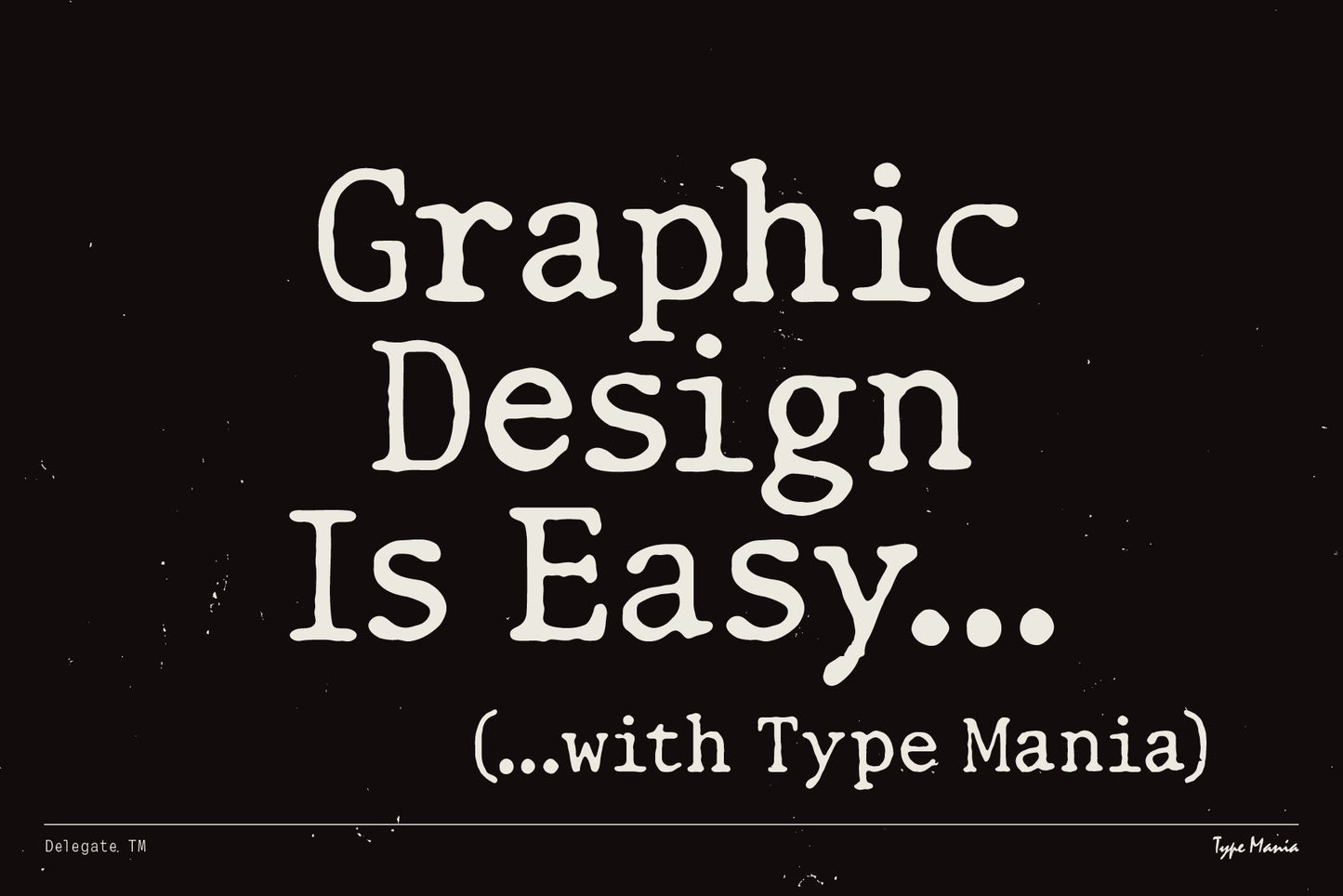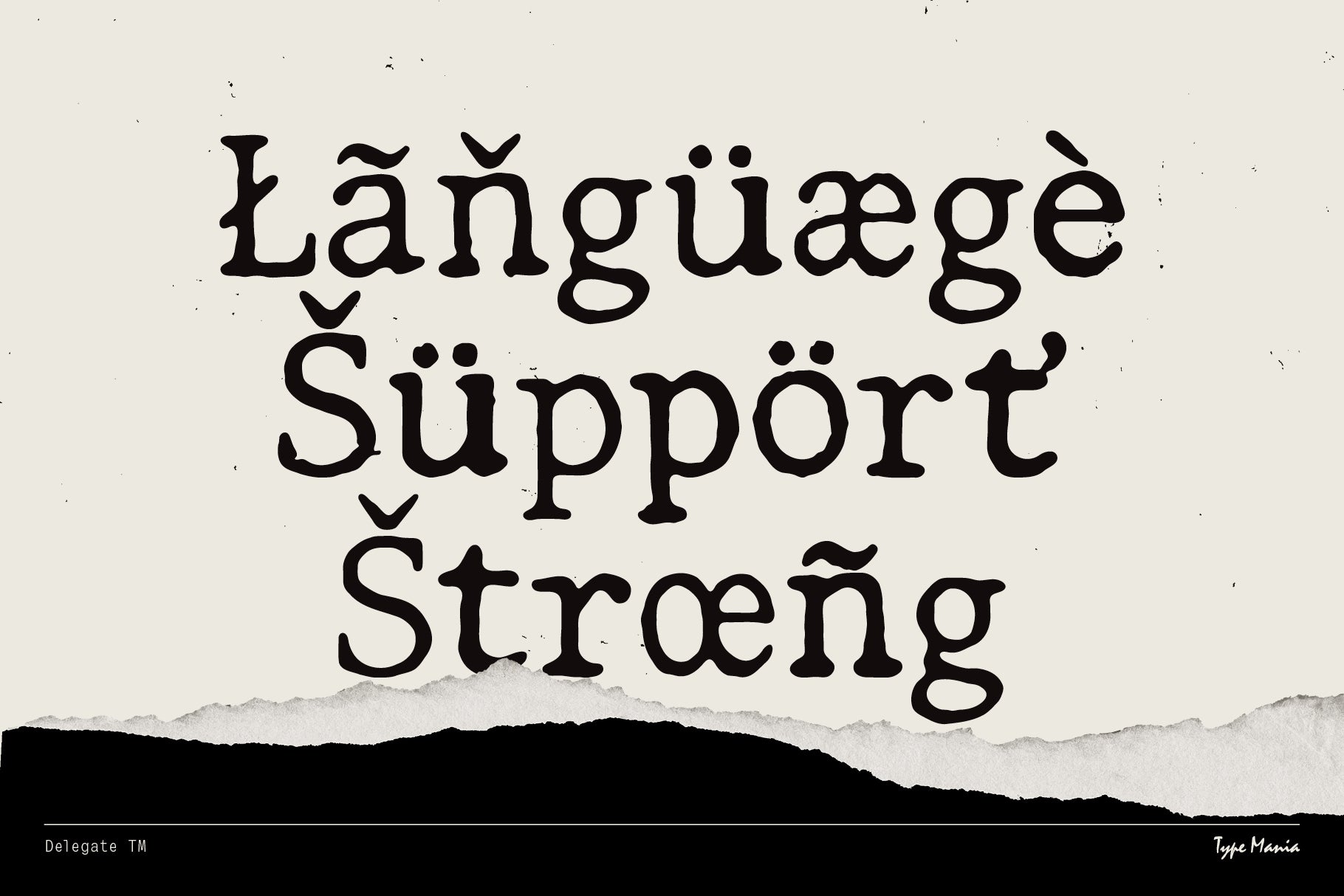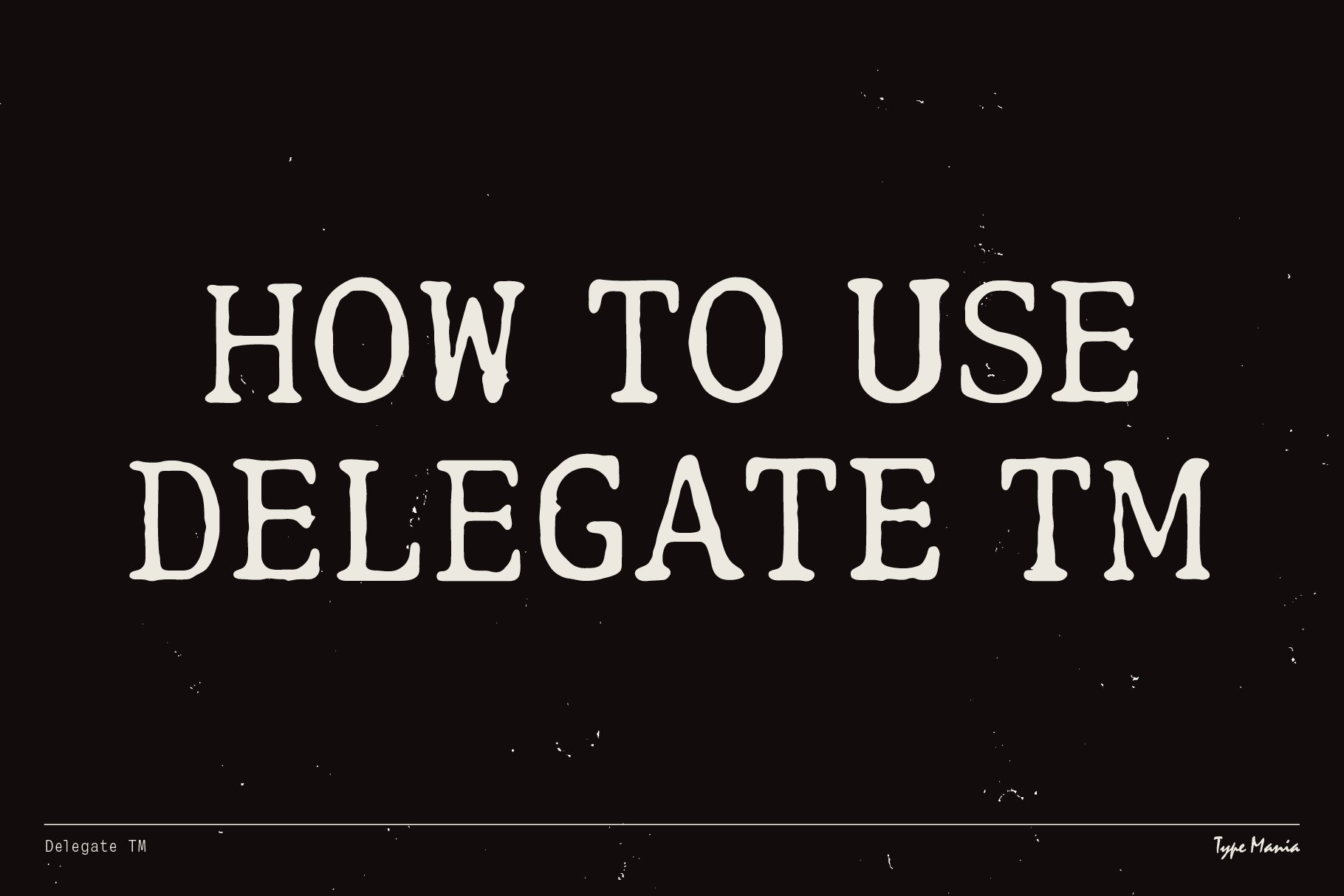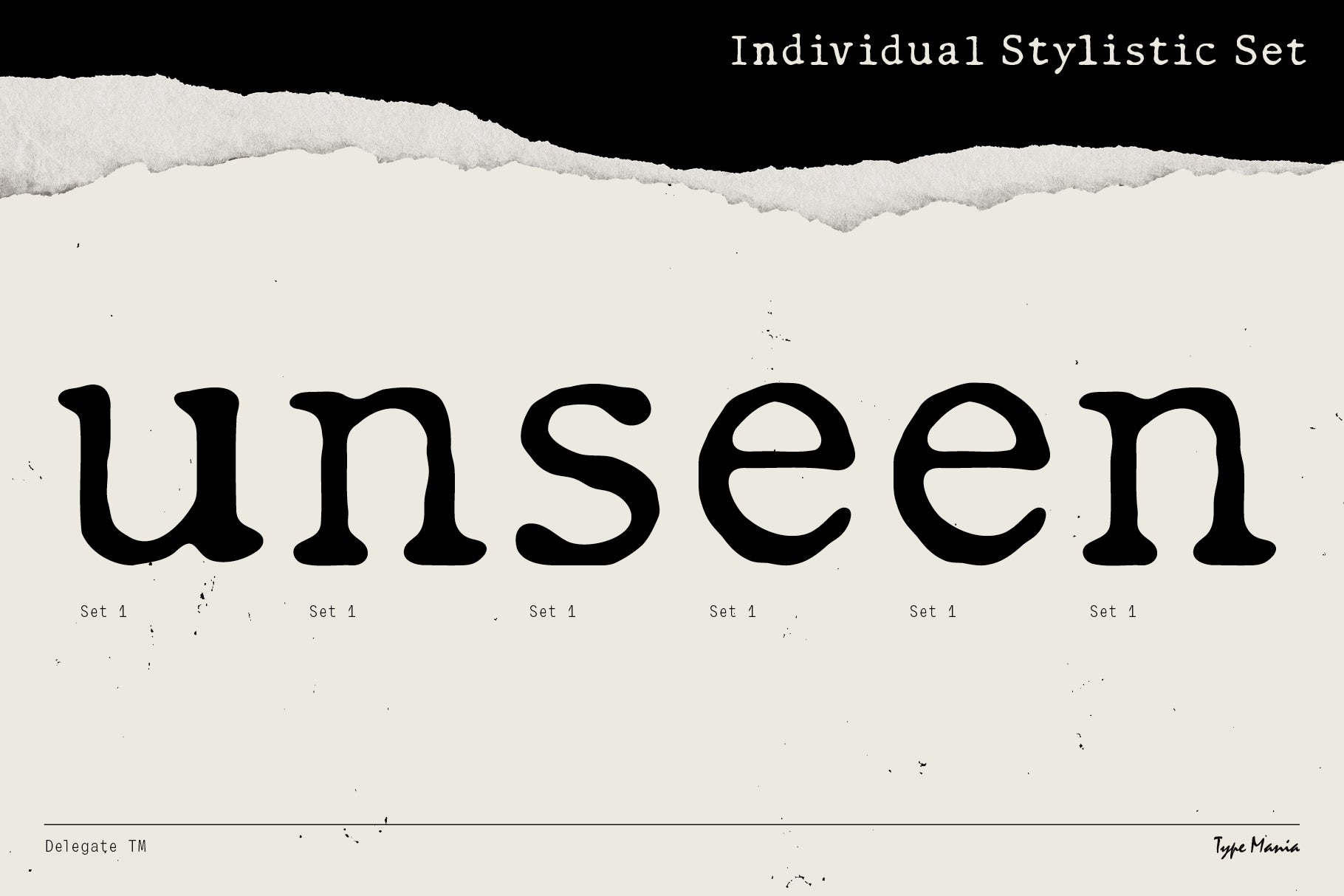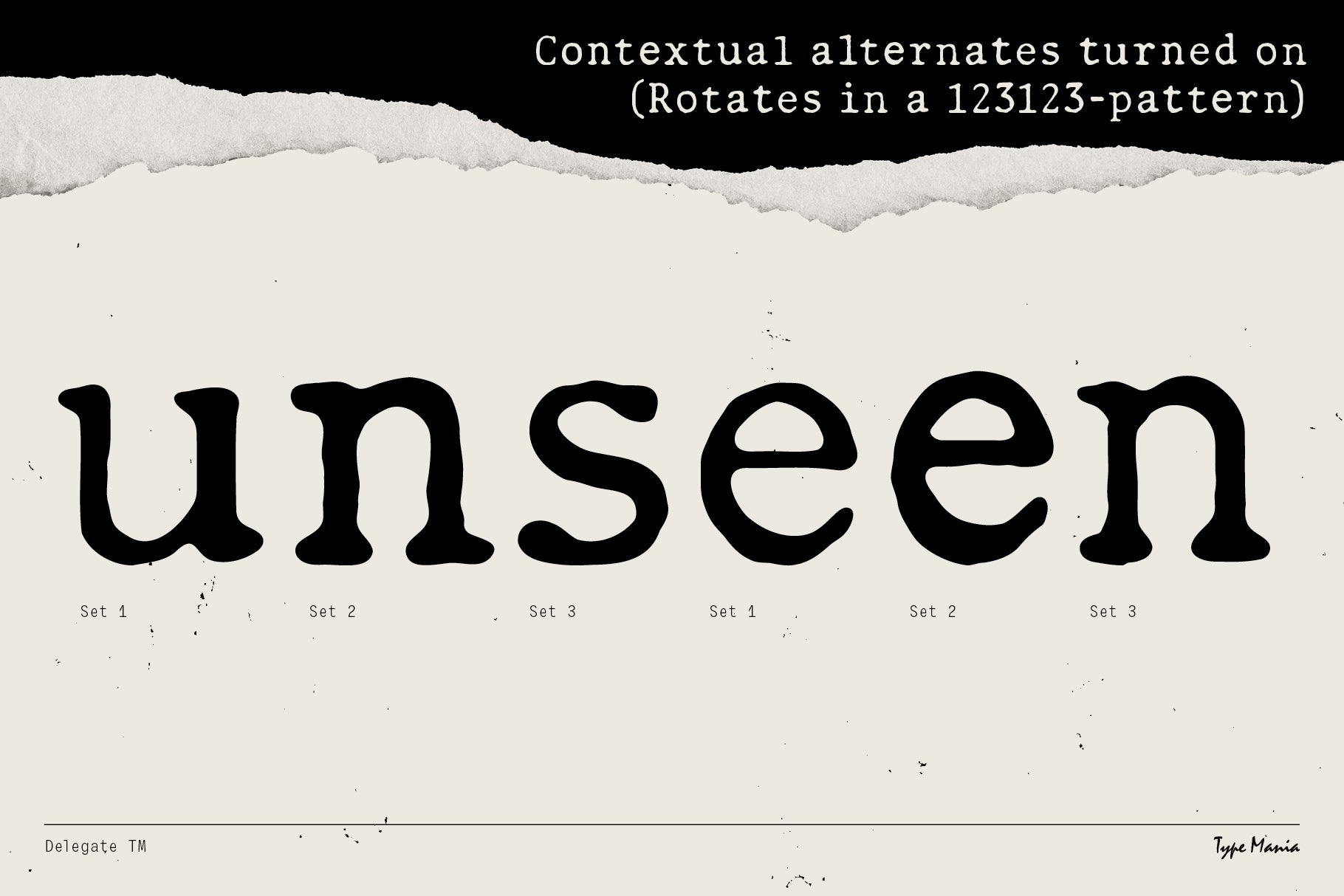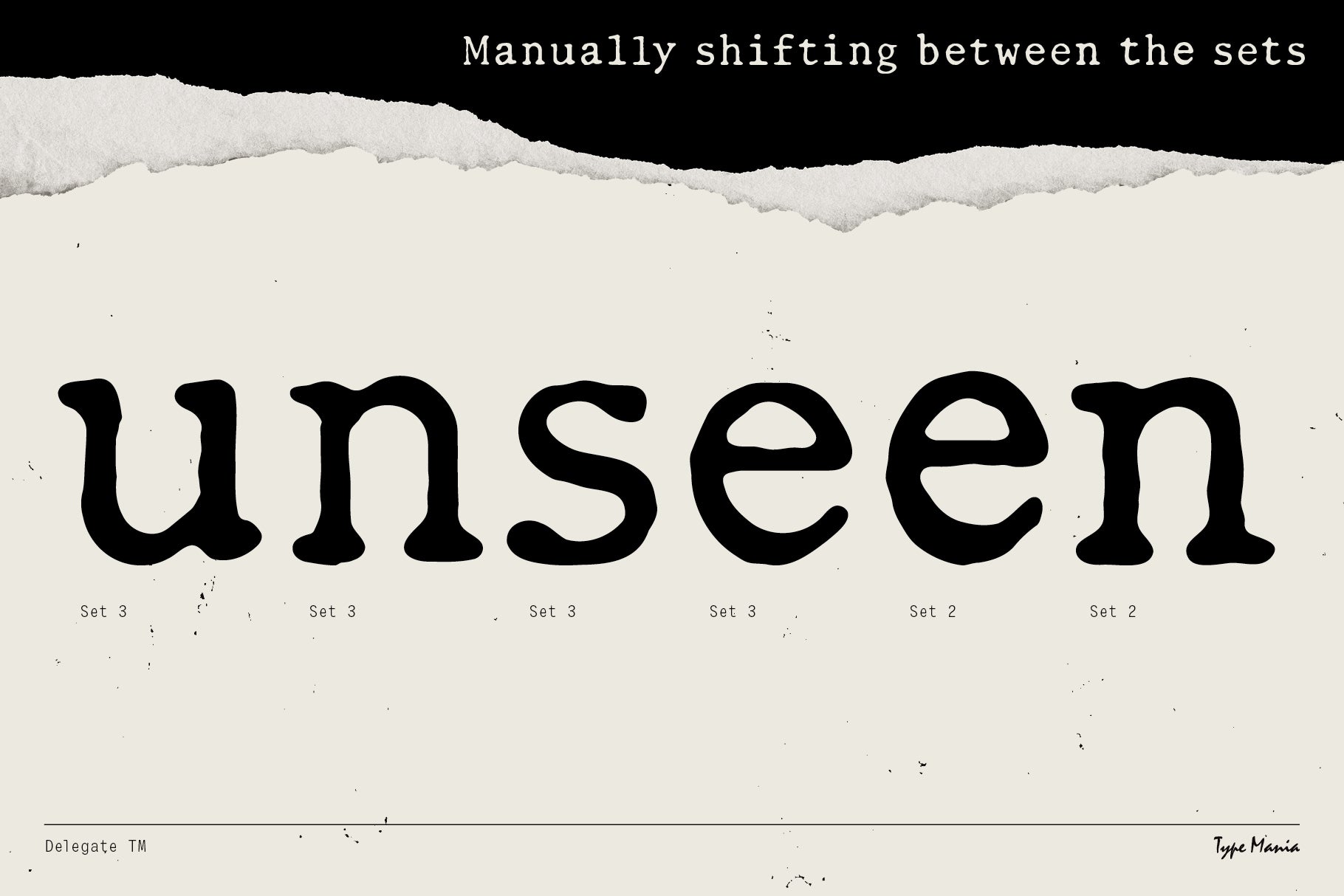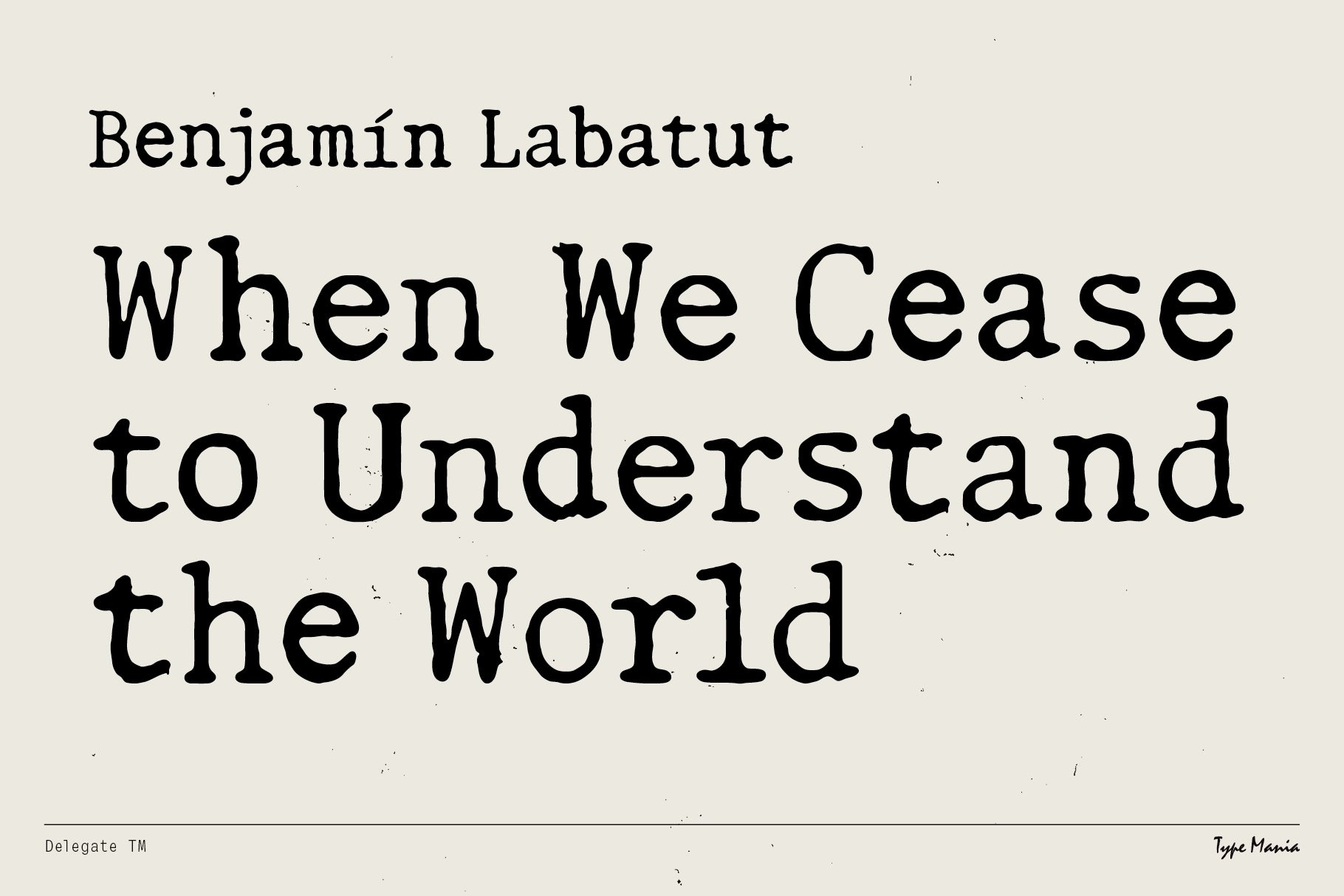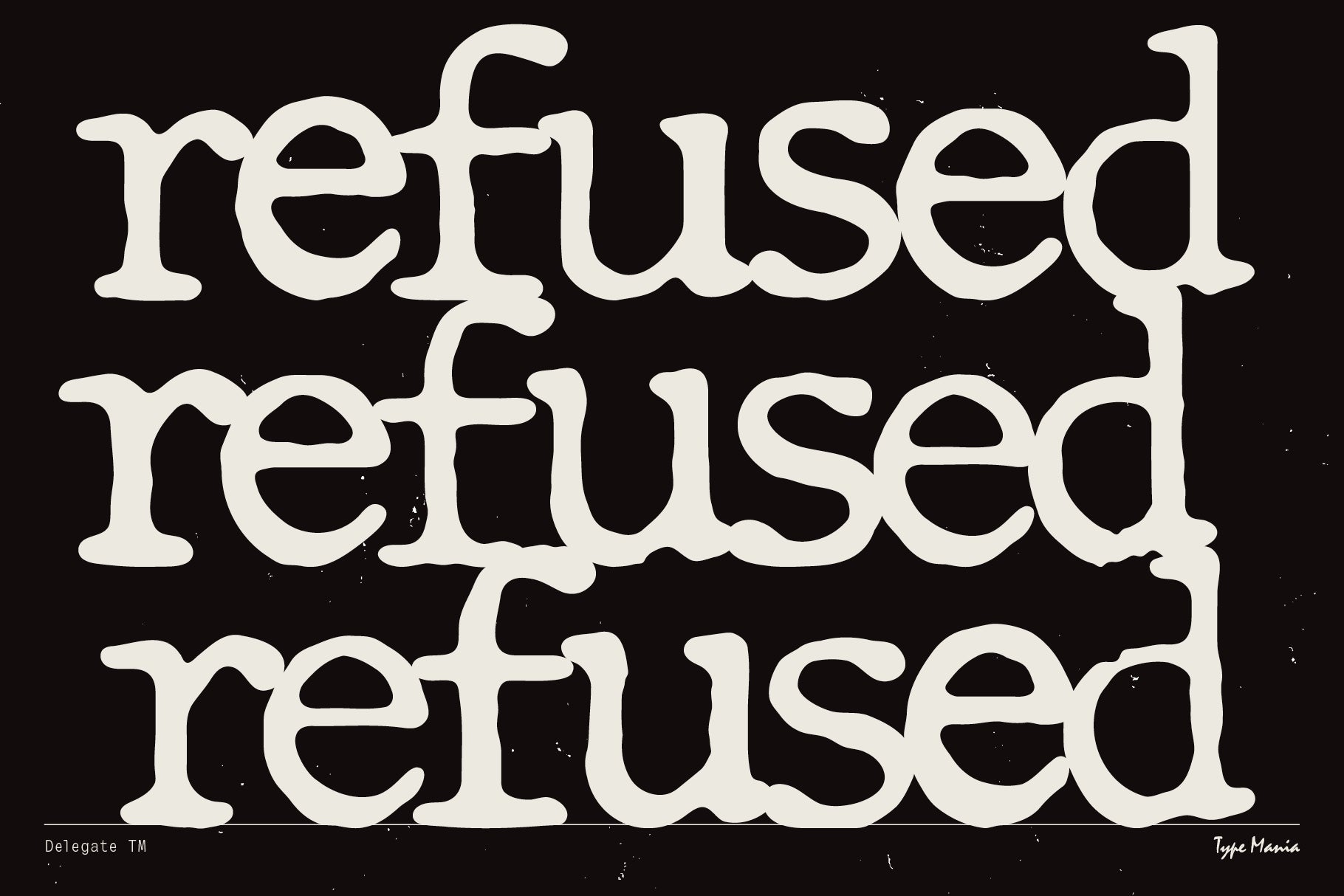
Delegate TM
Whether you're crafting a flyer for a house party or designing a brand identity; whenever you need a cozy, distressed typeface that delivers organic vibes damn near automatic – there's Delegate TM.
- 3 stylistic sets
- The font is programmed to automatically shift between the stylistic sets